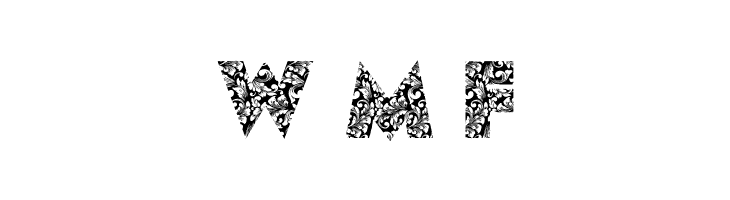
A whimsical font featuring playful animal illustrations for each character.
( Fonts by Alistair Quietsch )
A decorative font with sinewy, intertwined strands creating a dynamic and fluid appearance.
( CROLrene )
A playful, decorative font with festive ornament-like elements.
A hand-drawn, playful font with varying stroke widths and a dynamic appearance.
( www.cloutierfontes.ca/ )
A bold, decorative font with intricate, retro-inspired patterns.
( Fonts by share font )
A playful, hand-drawn font with bold, irregular letterforms and a street art vibe.
( Fonts by Rodrigo German - RASDESIGN )
Casual, hand-drawn font with a playful, skate-inspired style.
( Fonts by Kong Font )
A bold, playful font with rounded, skeletal-style characters.
A playful, bone-themed decorative font perfect for spooky designs.
A spooky, hand-drawn font with jagged, elongated characters.
( Fonts by Typography in Decay )
A sketch-like, hand-drawn font with overlapping lines and a playful style.
( Fonts by letterey )
A playful, hand-drawn font with characters enclosed in square frames.
( Fonts by letterey )
A playful, hand-drawn font with boxed characters and decorative elements.
( Fonts by Type Factory )
A bold, sketch-style decorative font with a playful and artistic appearance.
A bold, skewed font with dynamic, layered characters.
( Fonts by Hailey Mott )
A bold, geometric font with a mechanical, stencil-like design.
A playful, hand-drawn serif font with a sketch-like, artistic style.
A bold, decorative font with integrated skull motifs for a playful, edgy look.
A decorative font with characters encased in skull and crossbones motifs.
( jbensch.deviantart.com )
A skyline-inspired decorative font with a modern, architectural style.
( Fonts by Skynet )
A modern, geometric font with a keyboard-like appearance, ideal for digital interfaces.
( Fonts by Vasily Klyukin )
A modern, architectural font resembling skyscrapers with intricate detailing.